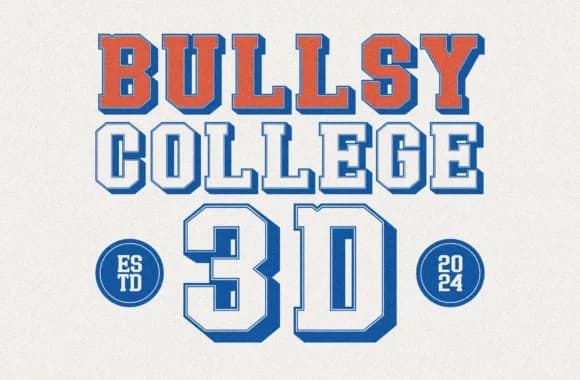
This font radiates old-school energy and pure nostalgic flair. Bullsy College 3D, designed by Marvadesign, is a bold 3D slab serif that delivers vintage collegiate spirit with genuine visual impact. The dimensional, chunky letterforms command immediate attention on everything from retro sports merchandise and throwback brewery labels to vintage band tee graphics.
Where it truly shines is on headline and display work that fully leans into throwback aesthetics. Vintage-inspired concert posters, college athletic apparel designs, nostalgia-heavy video game packaging, and retro fitness gym signage all benefit enormously from its unapologetic boldness. The 3D construction adds considerable depth to your designs without sacrificing legibility, which makes it strong enough for large display applications while still remaining crisp and readable up close. This is a font built for projects that aren't afraid to fully embrace 80s and 90s visual culture in print and digital work.
To balance its commanding boldness, pair Bullsy College 3D with a clean, lightweight sans-serif for any body text or smaller typographic elements. Let the slab serif handle the heavy lifting as your primary visual anchor. Find it on Creative Fabrica and add this timeless classic to your design toolkit.
- Sturdy, Confident, Serif
Bullsy College 3d Font is a slab serif font that shines as a display or heading face. Pair it with a clean sans-serif or serif font for body text β the contrast creates a clear hierarchy while the two styles stay balanced and easy to read.
Bullsy College 3d Font